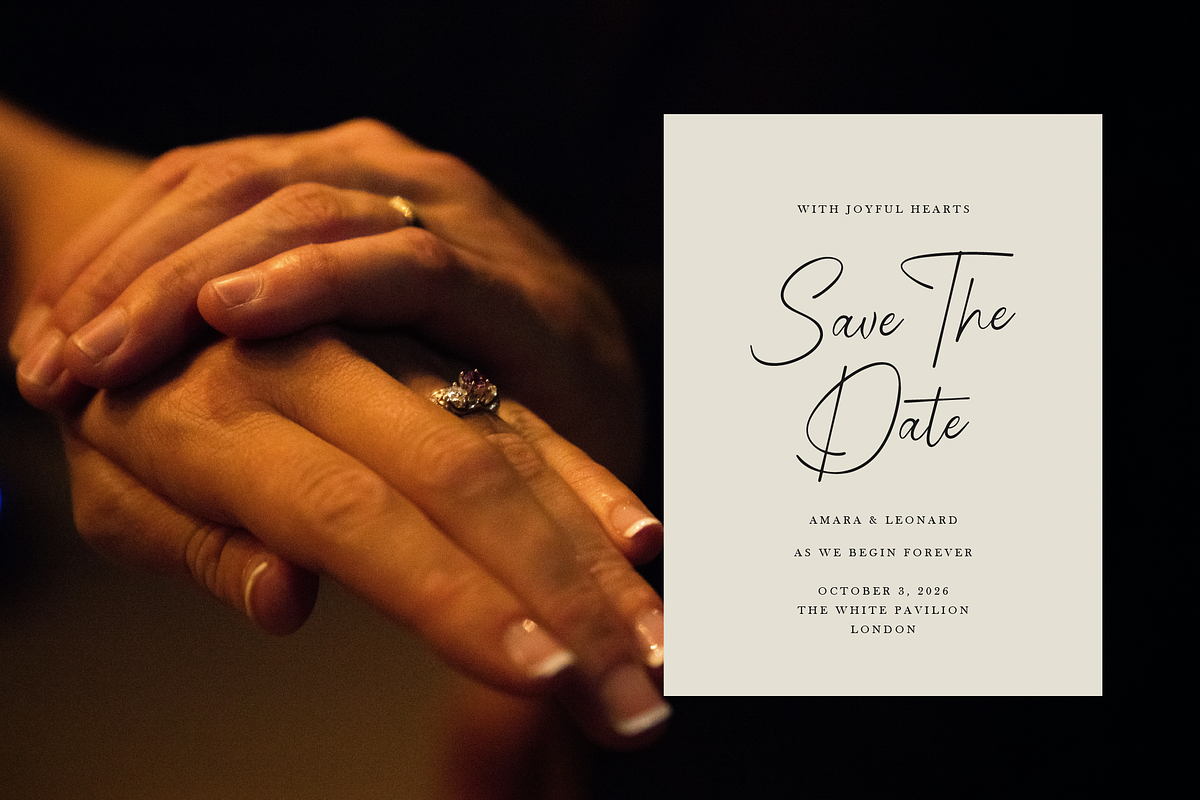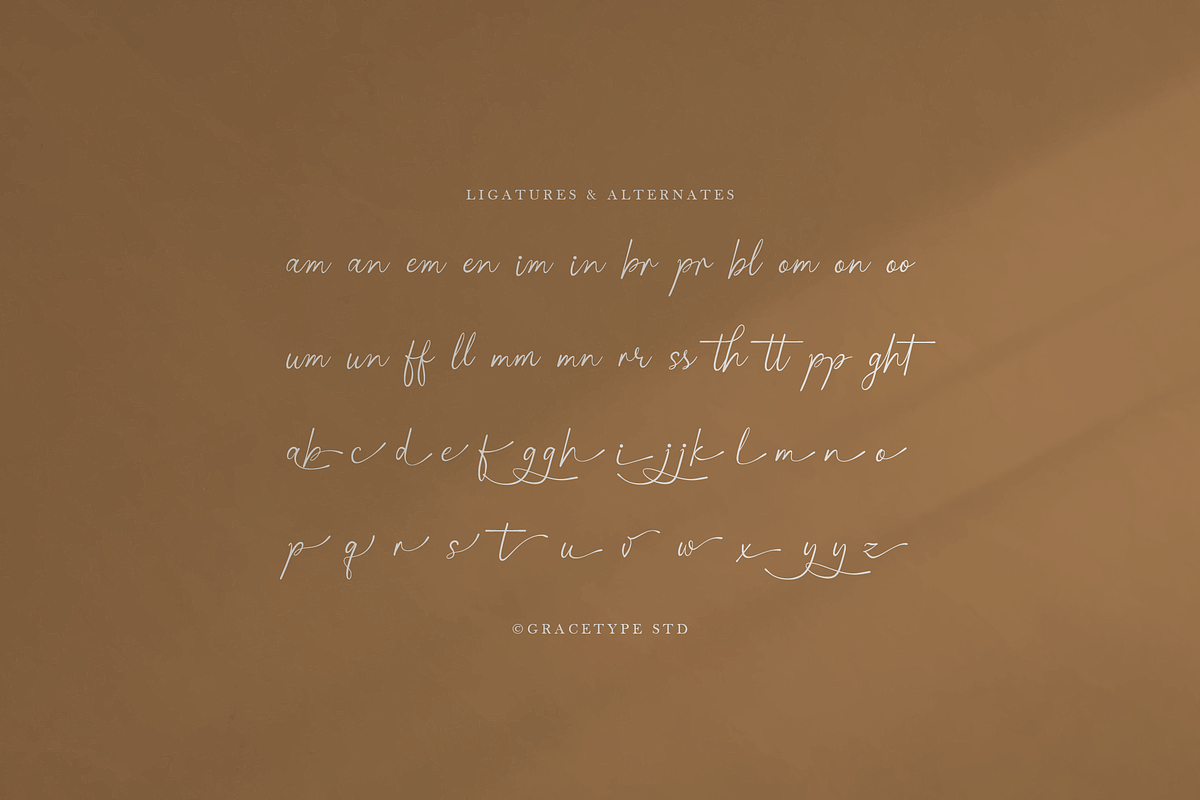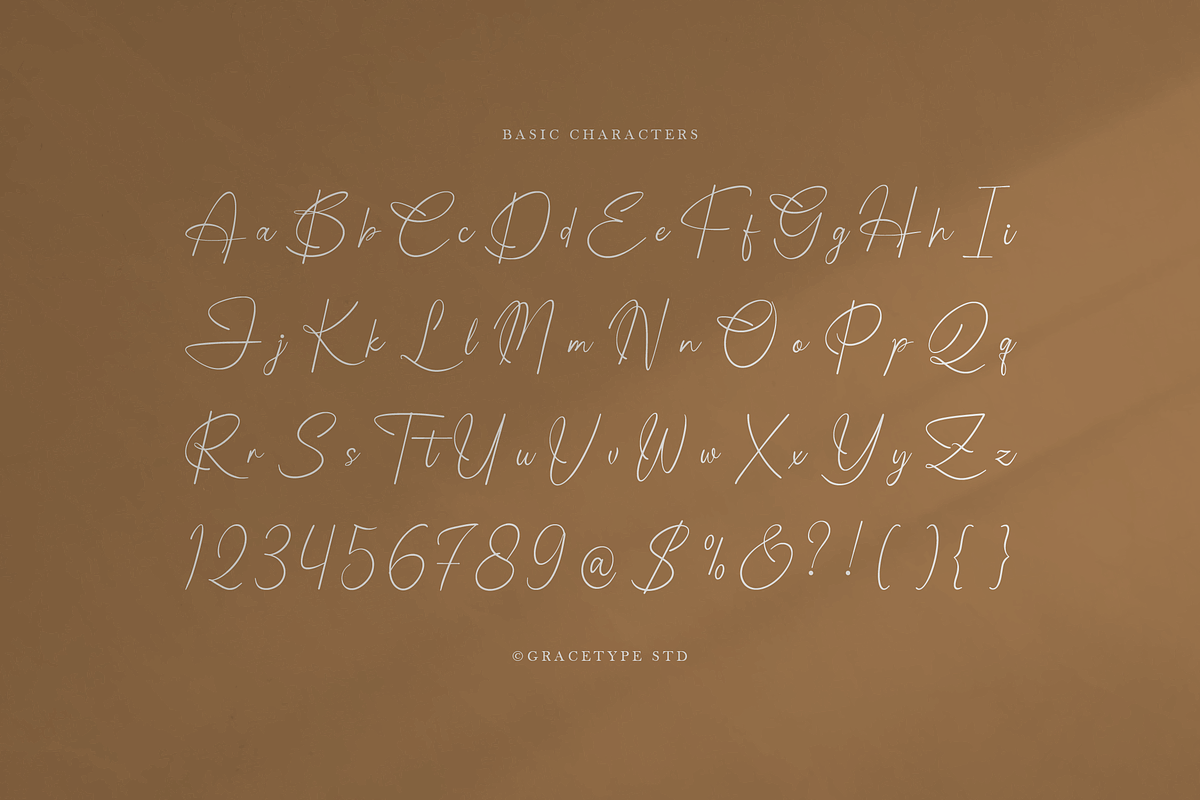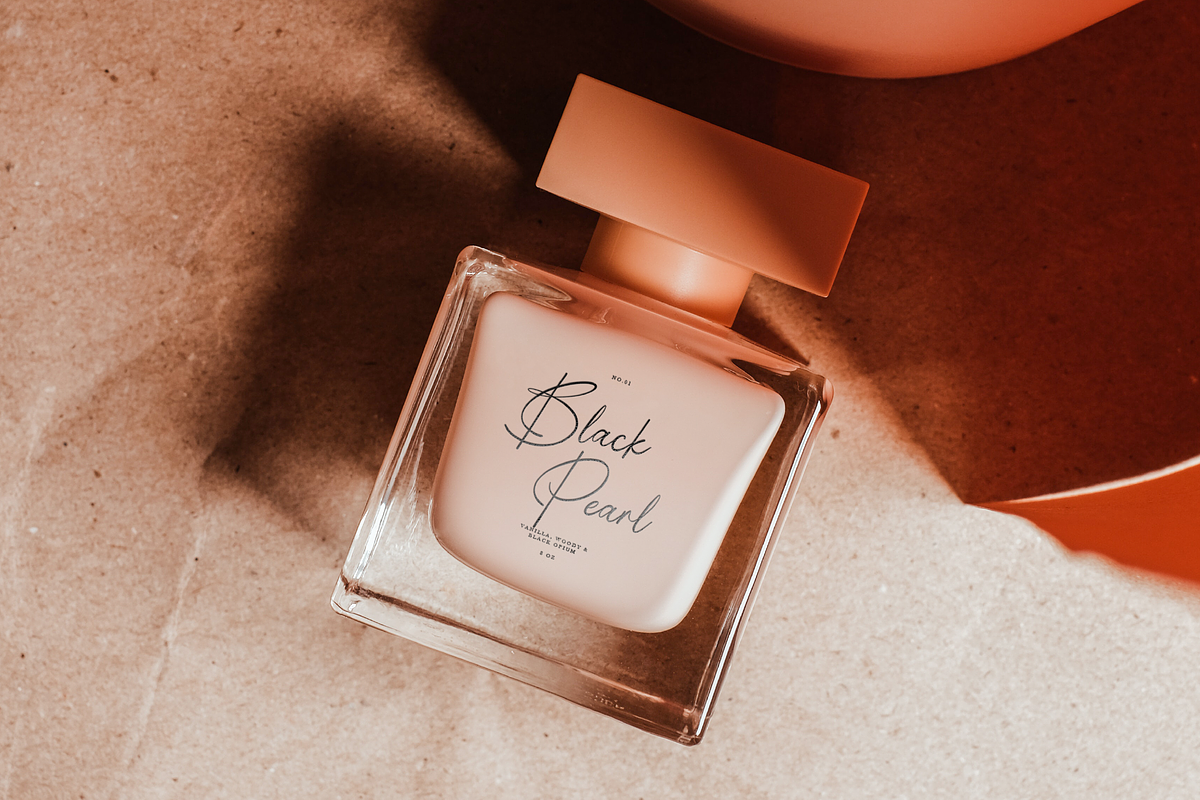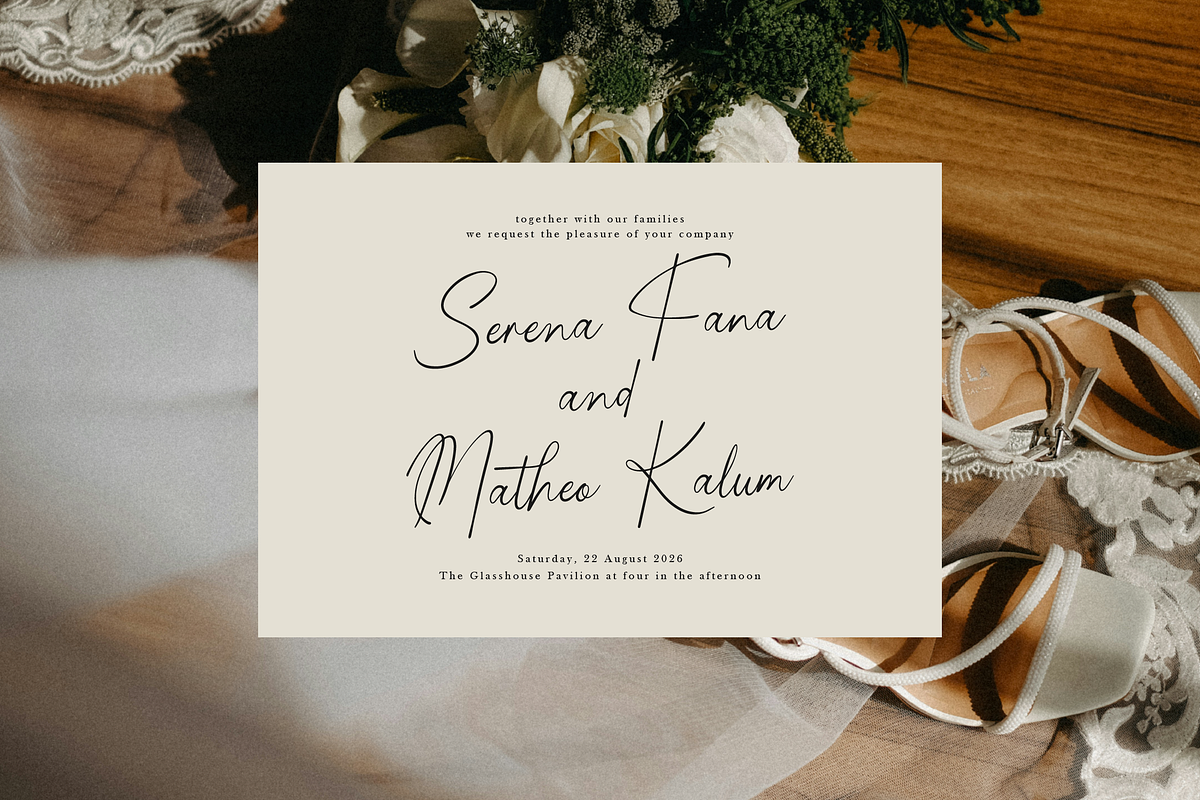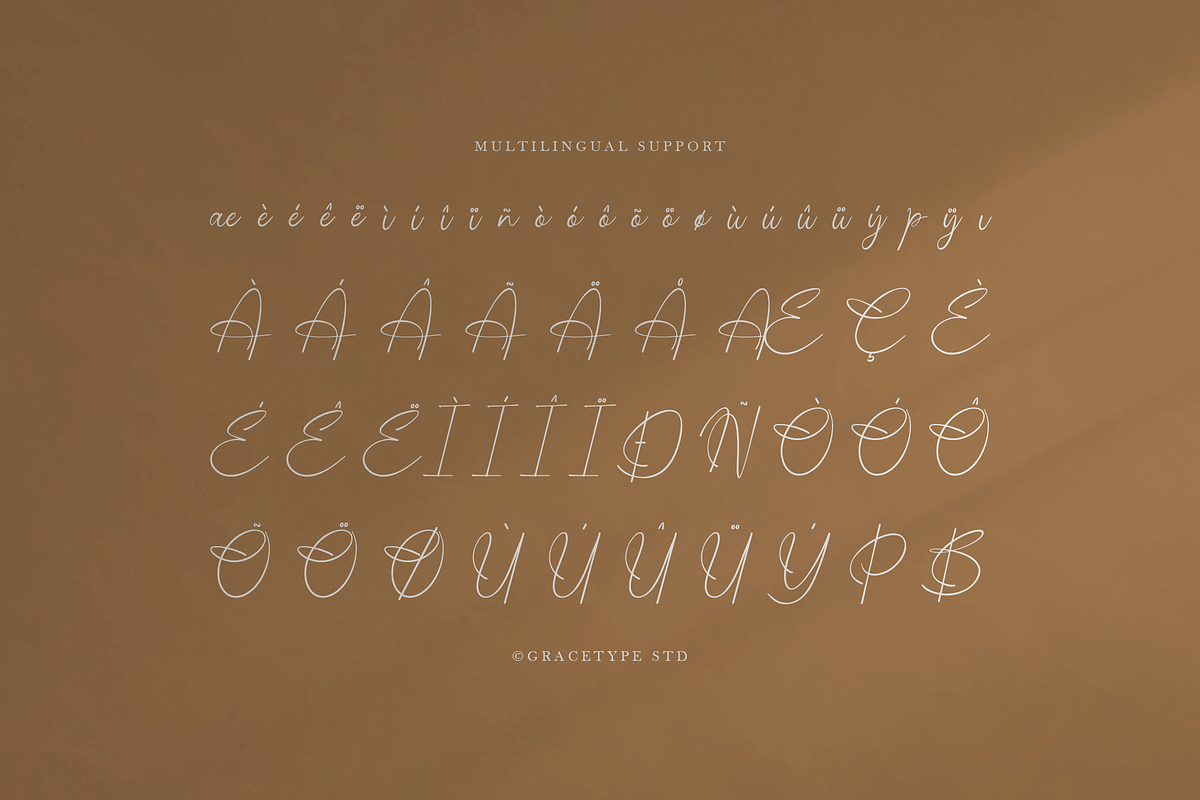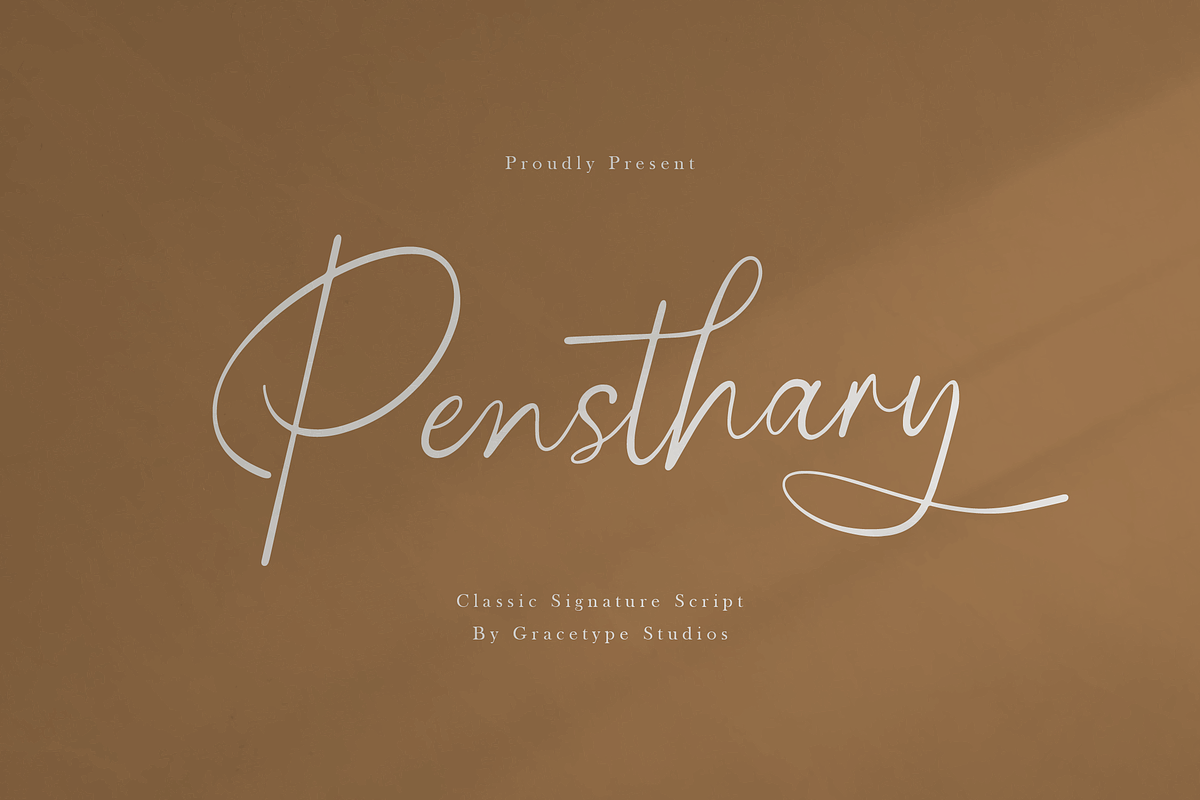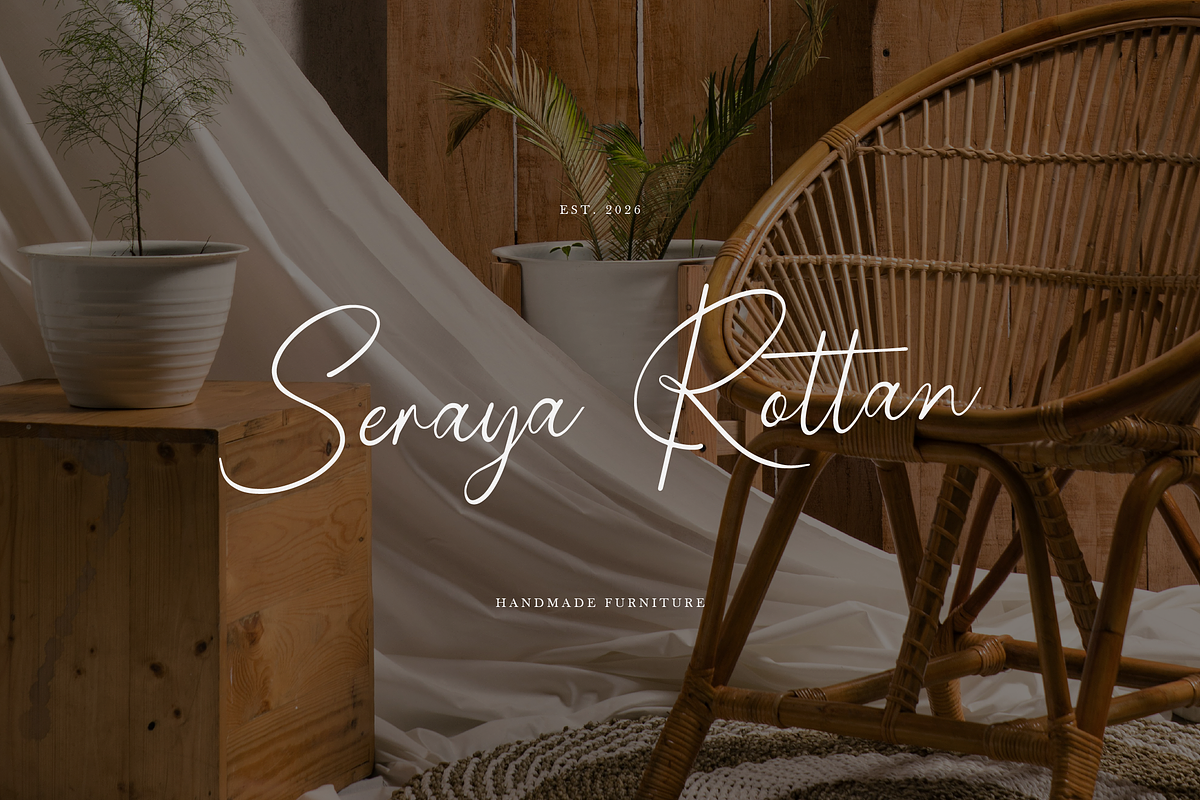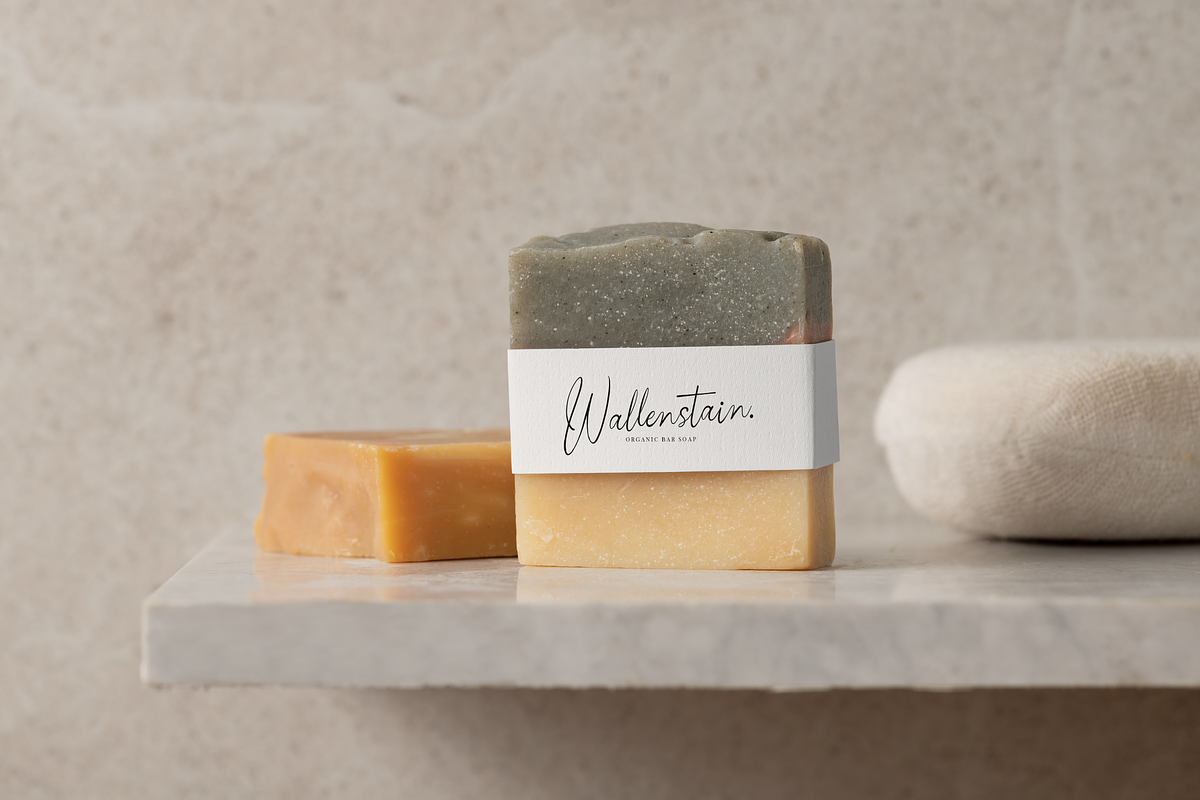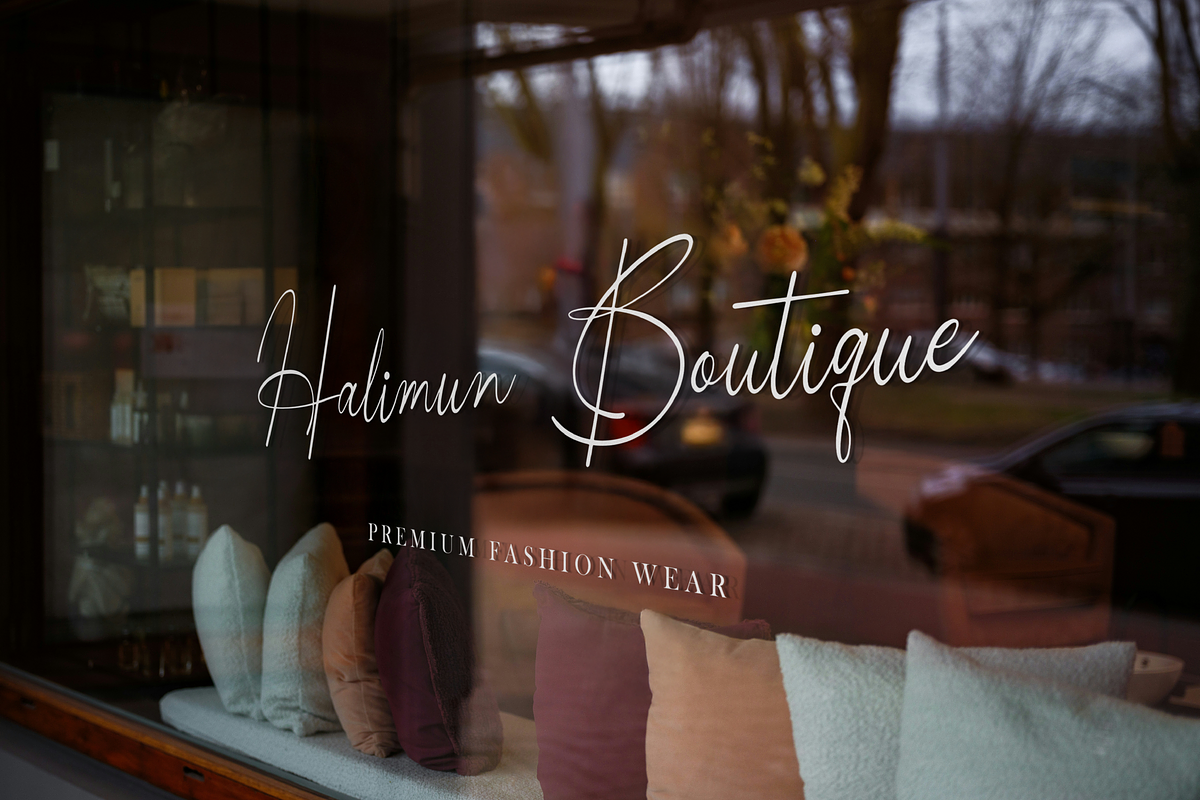
Pensthary | Classic Signature Script
Pensthary | Classic Signature Script, from Gracetypestudio, suitable for any projects such as: logos, branding projects, homeware designs, product packaging, mugs, quotes, posters, shopping bags, t-shirts, book covers, name card, invitation cards, greeting cards, label, photography, watermark, special events, and all your other lovely projects that need a Script taste.